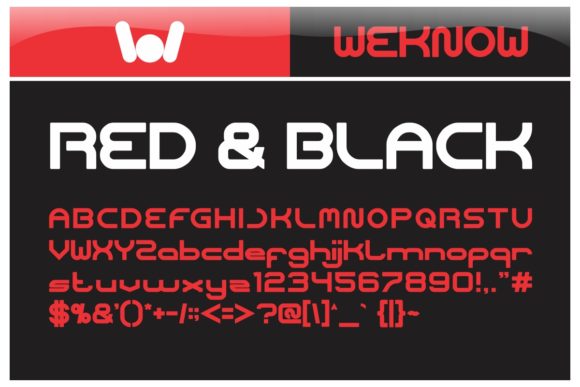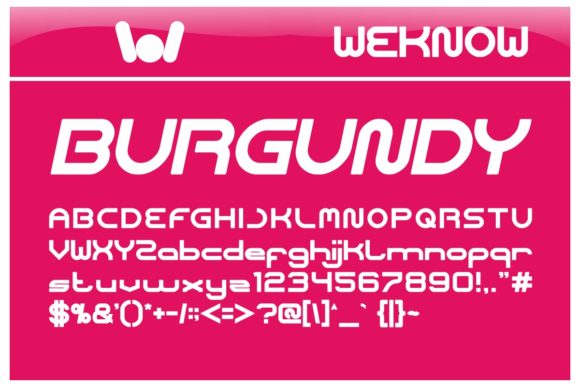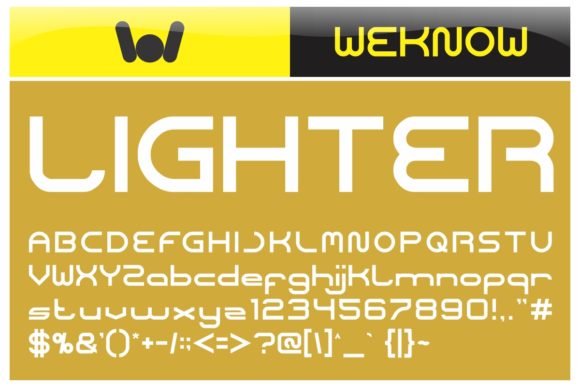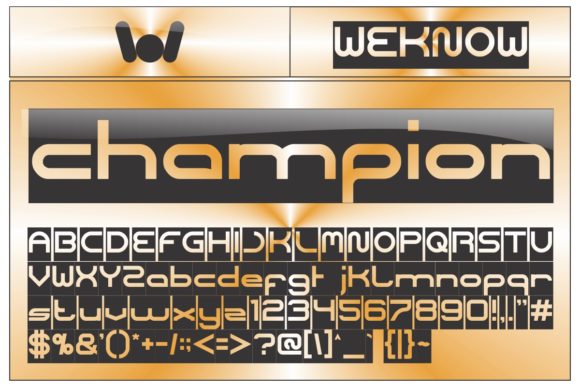
Cultural Font: The Epitome of Modern Typography
In the realm of typography, fonts play a pivotal role in conveying messages, evoking emotions, and setting the tone for various design projects. Among the myriad of fonts available, Cultural Font stands out as a beacon of modernity and sophistication. This techno-inspired display font family is not just a typographical innovation; it’s an attitude, a statement of boldness and confidence that can elevate any design project to new heights.
The Essence of Cultural Font
Cultural Font is characterized by its sleek lines, futuristic vibe, and an undeniable air of coolness. It’s a font that doesn’t just speak; it shouts with a contemporary voice that resonates with the tech-savvy audience. The design of Cultural Font is meticulously crafted to embody the spirit of the digital age, making it an ideal choice for designers and crafters looking to infuse their projects with a modern edge.
Why Choose Cultural Font?
There are several reasons why Cultural Font should be at the top of your font choices:
- Bold and Confident: Cultural Font exudes confidence and boldness, making it perfect for headlines, titles, and any design element that needs to stand out.
- Contemporary Coolness: Its techno-inspired design gives it a cool, contemporary vibe that appeals to a wide audience, especially those who appreciate modern design.
- Versatility: Despite its bold nature, Cultural Font is surprisingly versatile. It can be used in various design projects, from digital media to print, without losing its impact.
- Legibility: One of the key features of Cultural Font is its legibility. Even in bold statements, each letter remains clear and easily readable, ensuring your message is always conveyed effectively.
Applications of Cultural Font
The applications of Cultural Font are vast and varied. Here are some of the most notable uses:
- Digital Media: For websites, social media posts, and digital advertising, Cultural Font can help grab attention and convey a modern, tech-savvy image.
- Graphic Design: Whether it’s for posters, flyers, or brochures, this font can add a bold, contemporary touch to any graphic design project.
- Branding: For brands looking to reposition themselves as modern and forward-thinking, Cultural Font can be a valuable asset in their branding guidelines.
- Packaging: For product packaging, especially for tech gadgets and modern products, Cultural Font can add a sleek, high-tech feel.
Tips for Using Cultural Font Effectively
To maximize the impact of Cultural Font, consider the following tips:
- Pair it Wisely: Cultural Font can be paired with simpler fonts to create contrast and hierarchy in your design.
- Use it Sparingly: Due to its bold nature, it’s best used sparingly for headlines or key messages rather than body text.
- Experiment with Colors: Don’t be afraid to experiment with different colors. Cultural Font looks great in bold, bright colors as well as subtle gradients.
Cultural Font is more than just a font; it’s a design statement. With its bold and confident demeanor, contemporary coolness, and versatility, it has become an indispensable tool for designers and crafters aiming to create modern, impactful designs. Whether you’re working on a digital project, a branding campaign, or simply exploring your creativity, Cultural Font is sure to inspire and elevate your work to new heights.